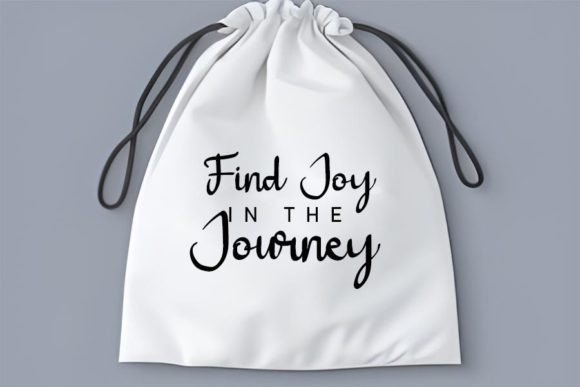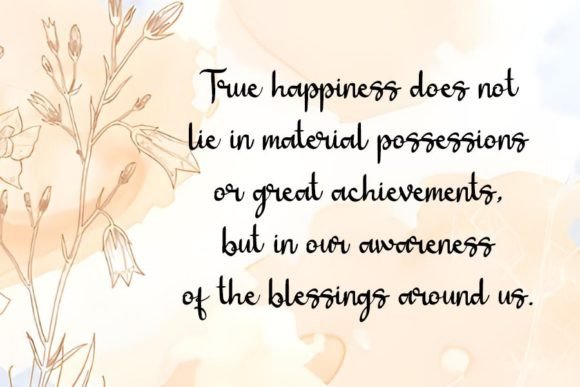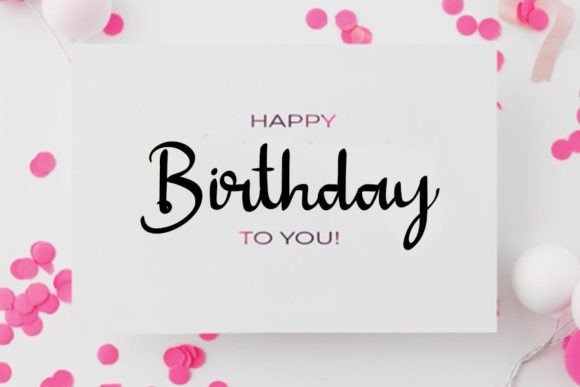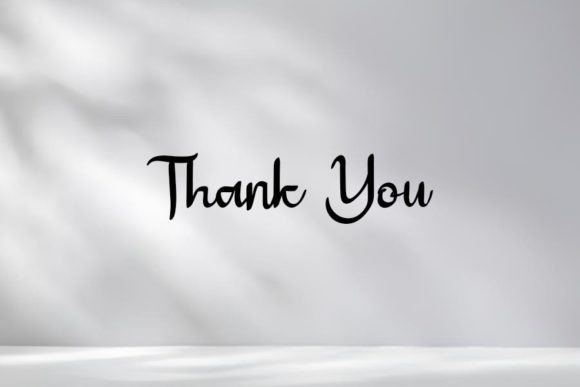
Diamond Ring Font: Elevate Your Designs with Elegance and Sophistication
In the world of typography, fonts play a crucial role in conveying the tone and personality of a design. For those seeking to add a touch of luxury, sophistication, and elegance to their creations, the Diamond Ring Font is an exceptional choice. This fancy, professional, and cursive script font is meticulously designed to make your projects stand out, whether it’s for headlines, logos, crafts, or various apparel and merchandise.
What Makes Diamond Ring Font Stand Out?
Diamond Ring Font is not just another typeface; it’s a statement piece for your designs. Here are some key features that make it unique:
- Fancy and Elegant: With its cursive script style, Diamond Ring Font brings an air of sophistication and class to any project. Its elegant strokes and beautiful ligatures make it perfect for designs that require a high-end feel.
- Professional Quality: The font is carefully and neatly designed, ensuring that it looks professional in any context. This makes it ideal for business logos, branding, and high-end merchandise.
- Versatility: Whether you’re working on headlines, logos, crafts, or any kind of apparel and merch projects, Diamond Ring Font adapts seamlessly. Its versatility is one of its strongest assets, allowing designers to experiment with various applications.
- Attractiveness: The font’s unique design elements make it inherently attractive, drawing the viewer’s eye and adding a compelling aesthetic to your creations.
Applications of Diamond Ring Font
The Diamond Ring Font’s versatility means it can be used in a wide range of projects. Here are some of the most popular applications:
- Logos and Branding: For businesses looking to establish a luxury brand image, Diamond Ring Font can be a valuable asset. Its professional and elegant appearance makes it suitable for logos, business cards, and other branding materials.
- Headlines and Titles: Add a touch of elegance to your headlines and titles with Diamond Ring Font. It’s perfect for magazines, newspapers, blogs, and any content that needs to make a strong first impression.
- Crafts and DIY Projects: For crafters and DIY enthusiasts, Diamond Ring Font can add a personalized and sophisticated touch to handmade products, such as greeting cards, invitations, and decorative items.
- Apparel and Merchandise: Whether you’re designing t-shirts, mugs, or any other merchandise, Diamond Ring Font can elevate your products with its stylish and cursive script.
Diamond Ring Font is a powerful tool for designers and crafters looking to add a touch of elegance and sophistication to their projects. Its fancy, professional, and cursive script style makes it perfect for a wide range of applications, from logos and headlines to crafts and merchandise. By incorporating Diamond Ring Font into your designs, you can elevate your creations, making them more assertive, attractive, and engaging. Whether you’re a seasoned designer or a DIY enthusiast, this font is sure to become a valuable asset in your creative toolkit.